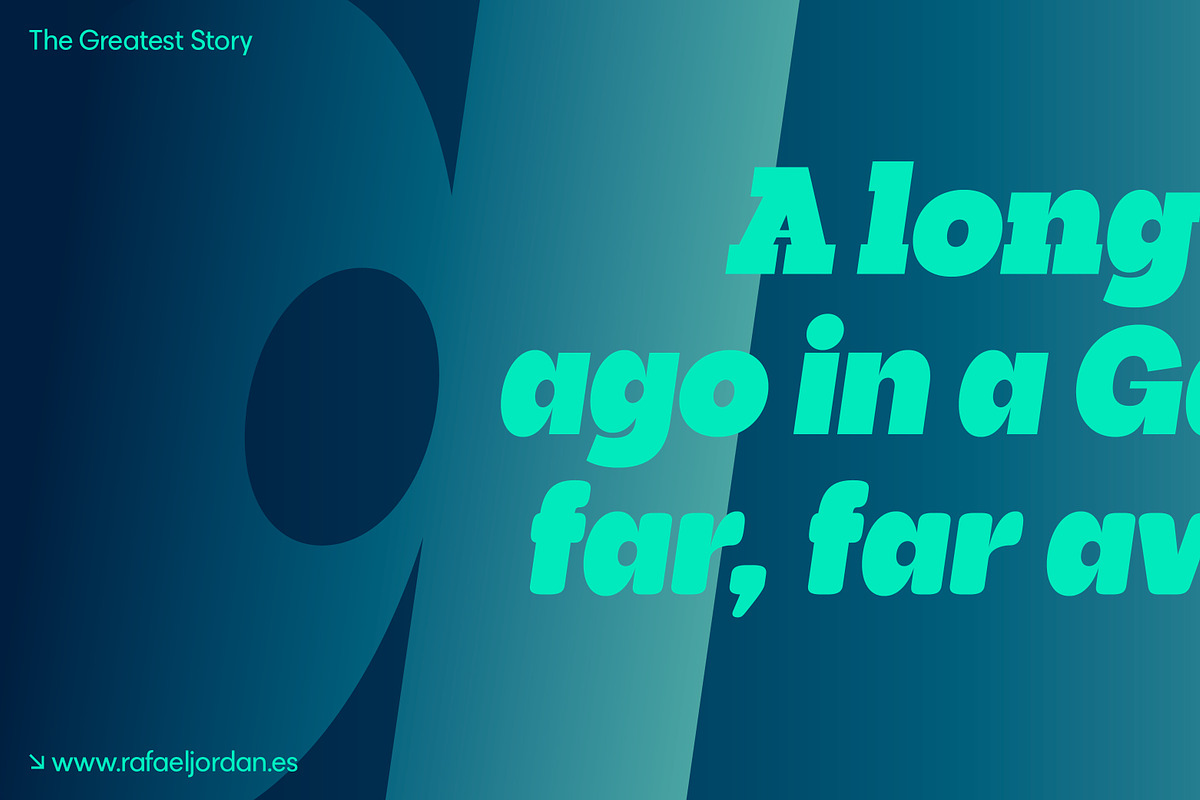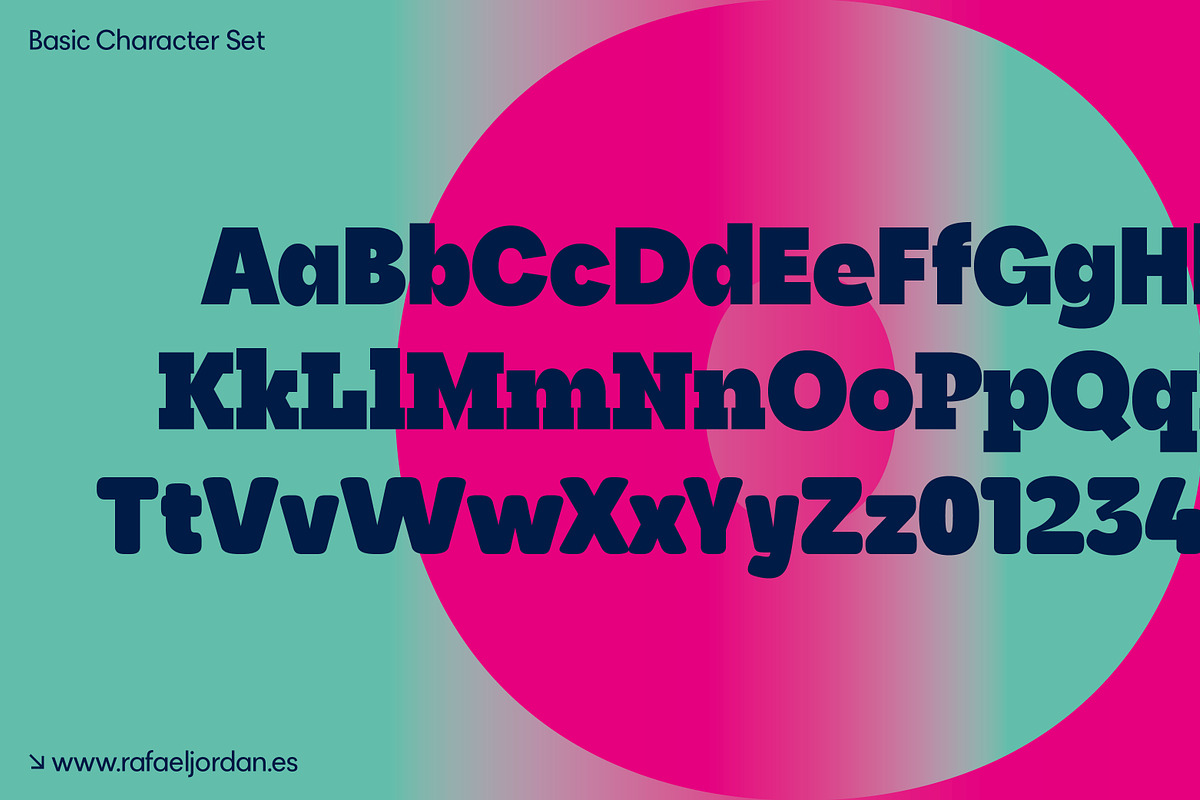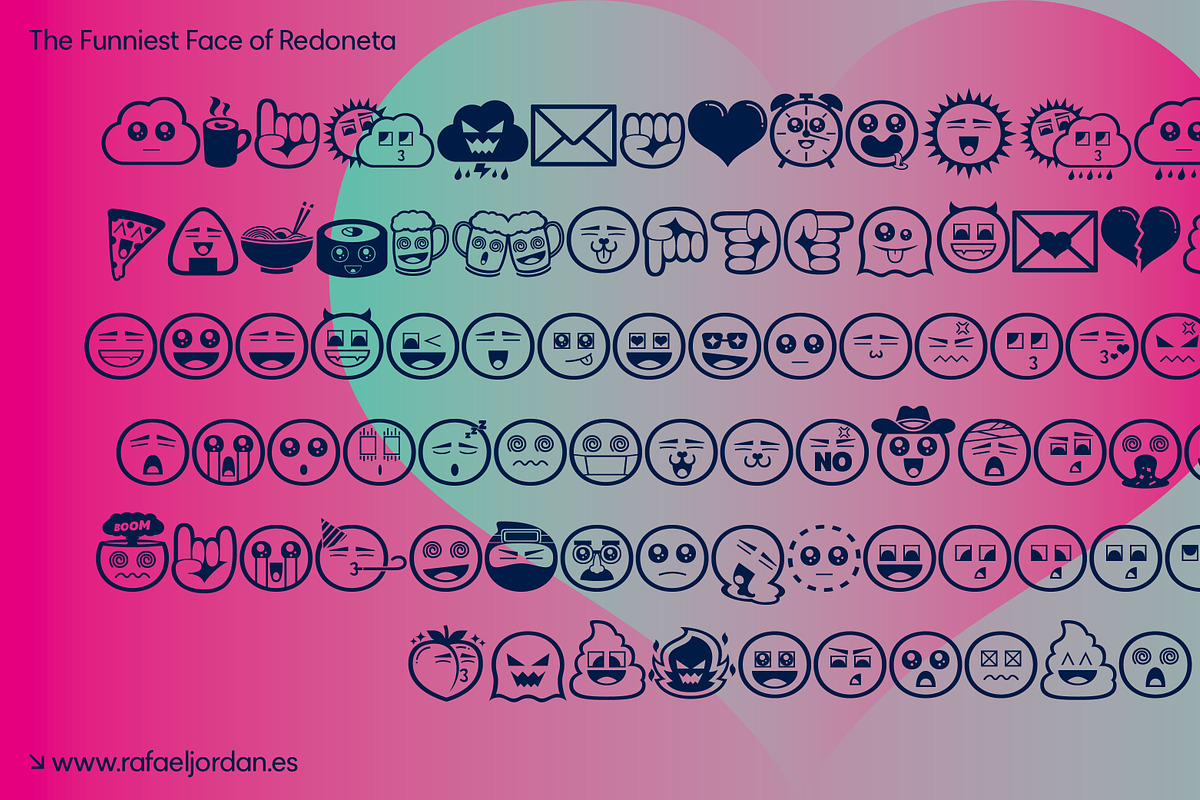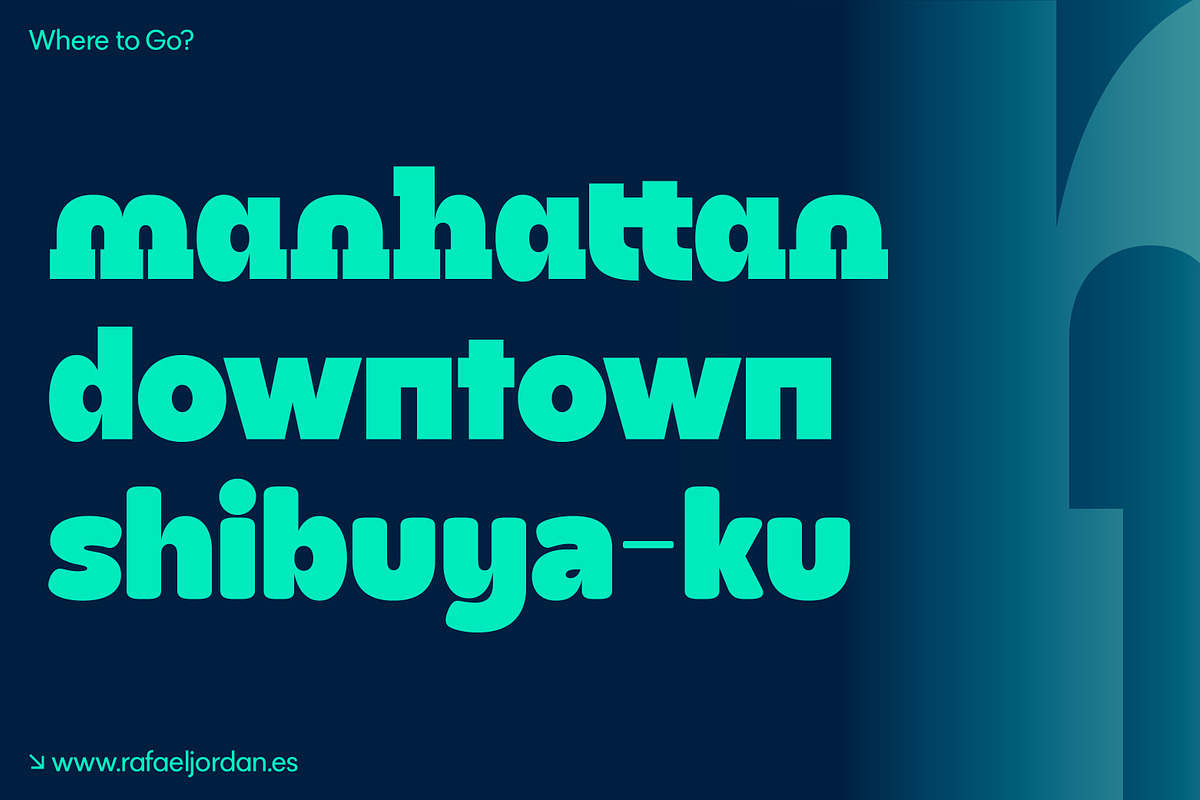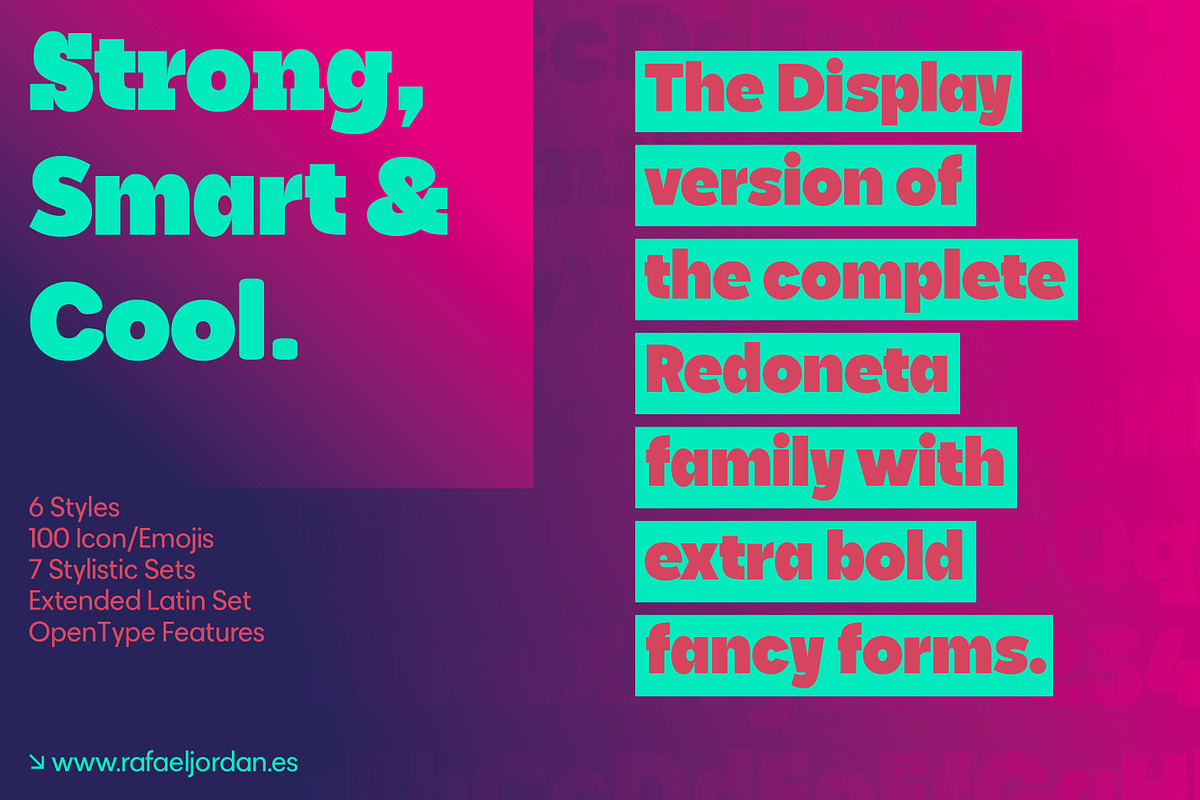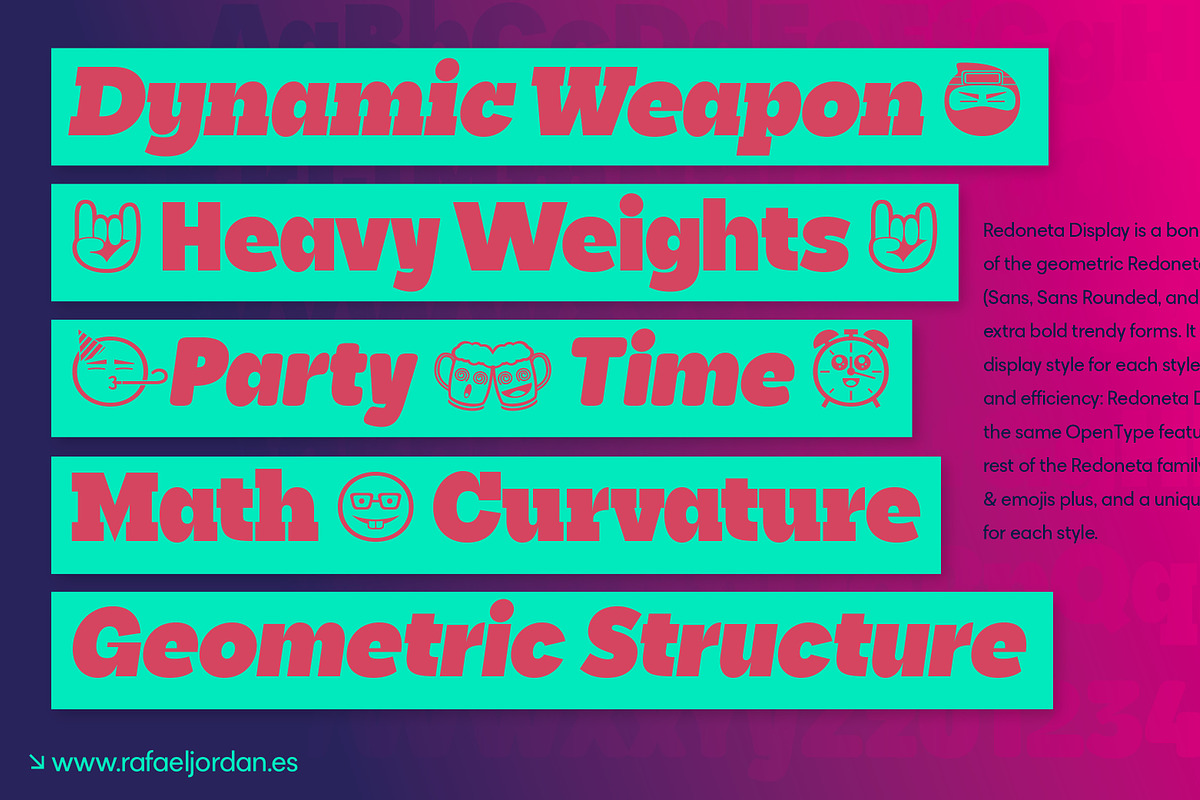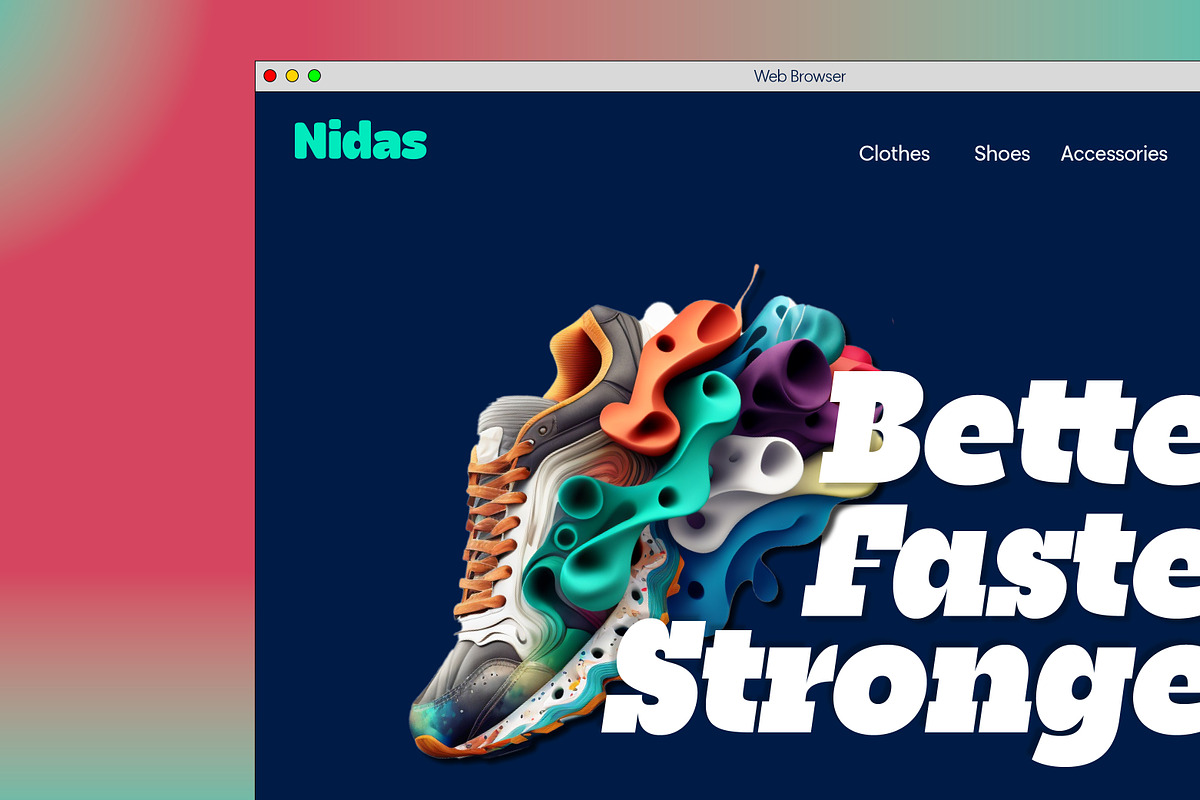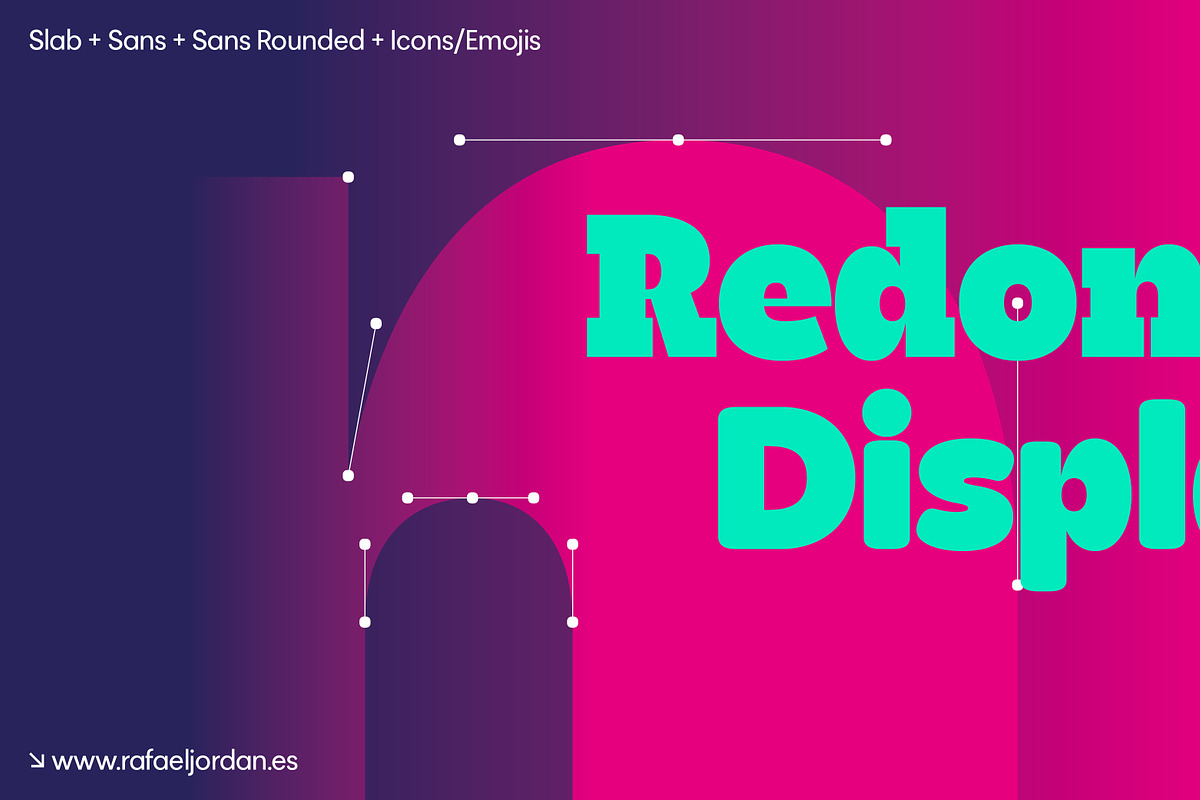
Redoneta Display
Redoneta Display is a bold and expressive geometric sans serif font family. It features extra bold forms for impactful designs and includes display styles for each style within the Redoneta Trilogy (Sans, Sans Rounded, and Slab). The font also comes with 100 icons & emojis, adding versatility to its use.